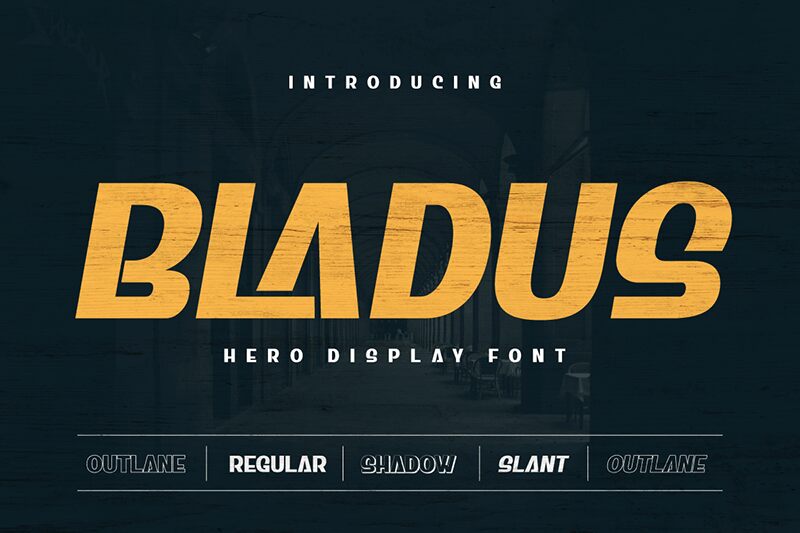
BLADUS, a striking display font by Twinletter, boasts a bold and memorable aesthetic that demands attention. With its semi-expanded width, this font exudes confidence and sophistication.
Ideal for branding projects seeking to make a lasting impression, BLADUS adds an air of elegance to luxury fashion labels or high-end product packaging. Its commanding presence also lends itself to eye-catching headlines in editorial layouts, captivating audiences from the get-go.
Whether used in print or digital design, BLADUS is the perfect choice for creating visually impactful and engaging content.